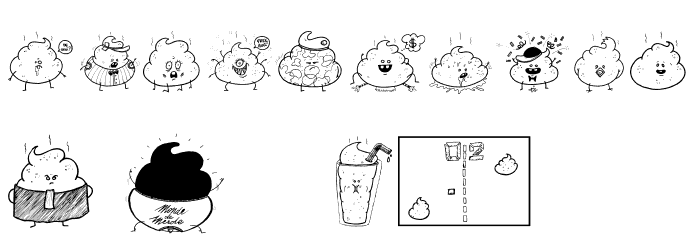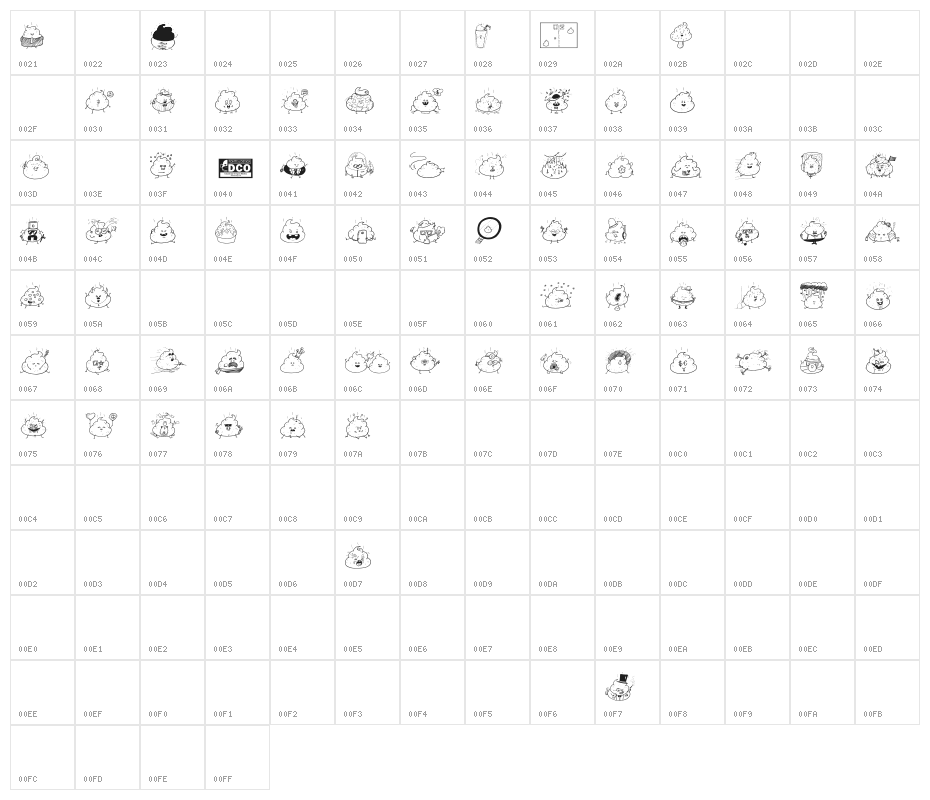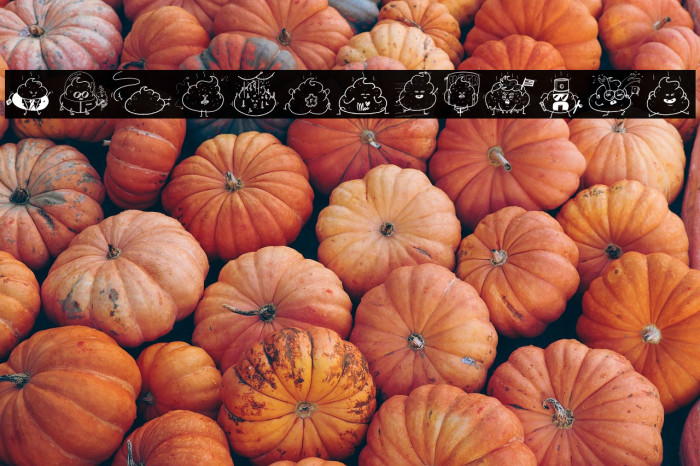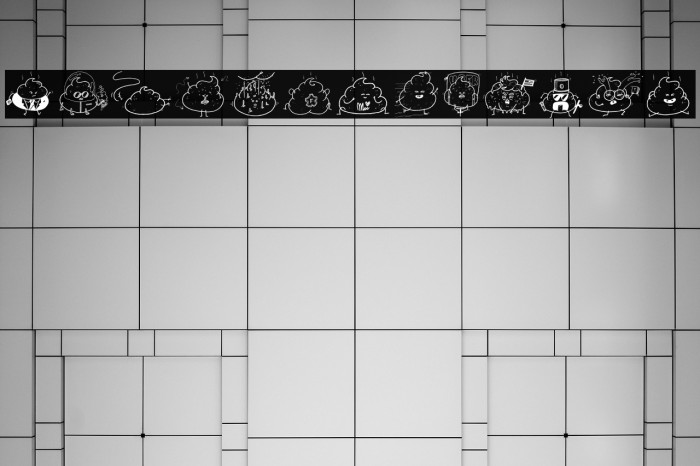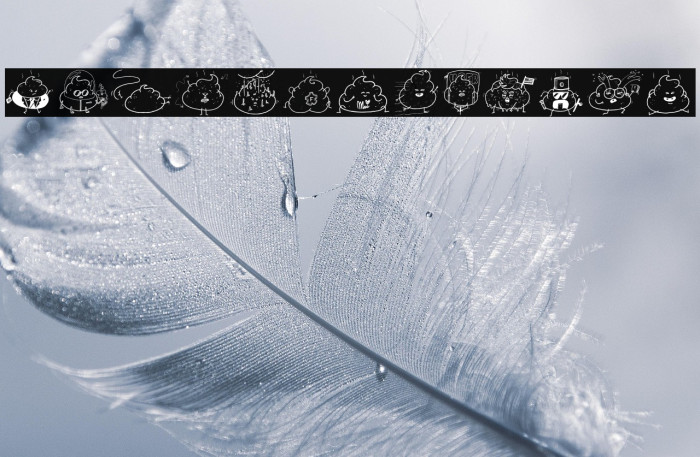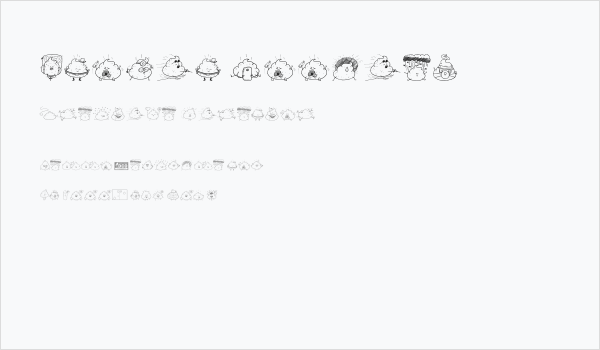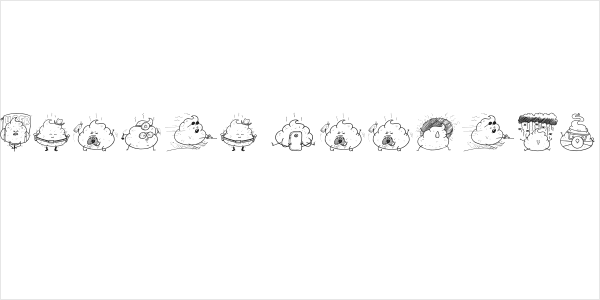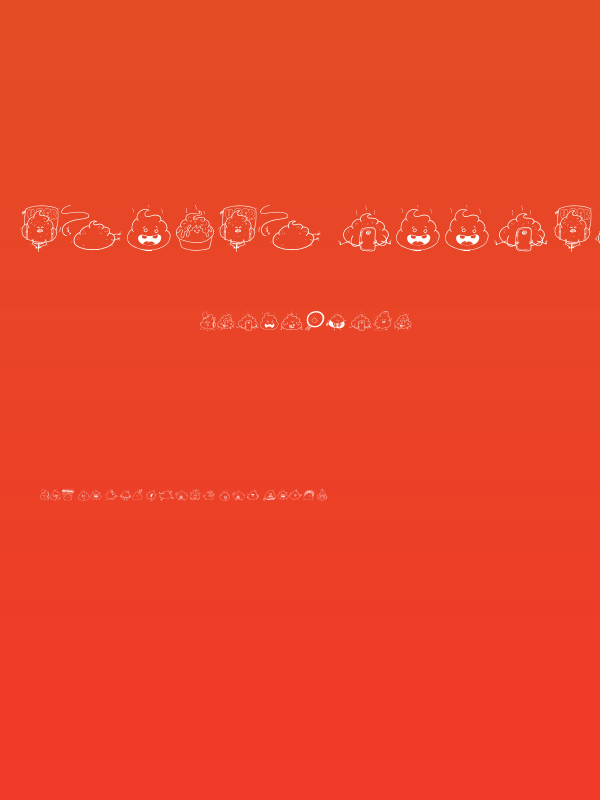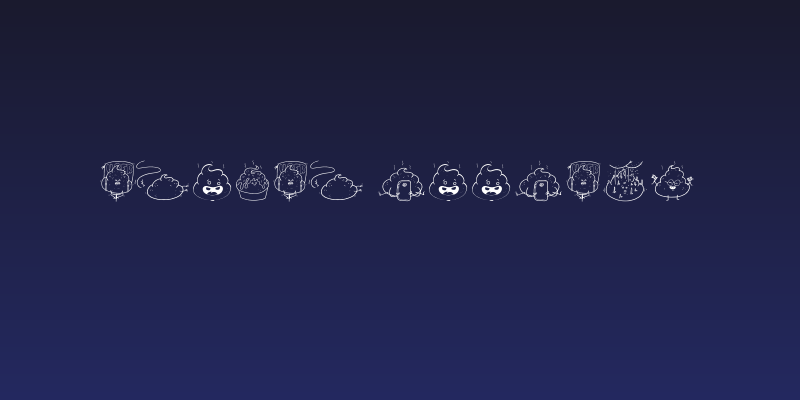
Iconic Poopies Font
Iconic Poopies Description
| Overall Style | Whimsical, Playful, Humorous, Decorative |
| Use Case | Icons, Stickers, Social media, Branding, Merchandise |
| Proposed Projects | Stickers, emoji packs, children's games, novelty merchandise, playful branding, social media graphics. |